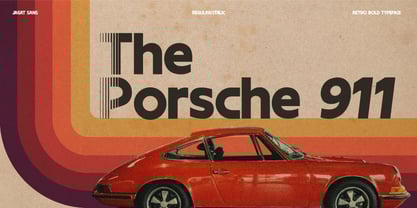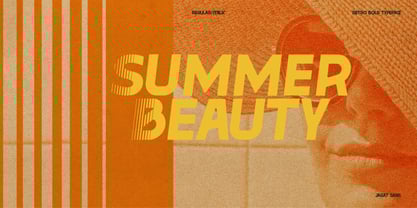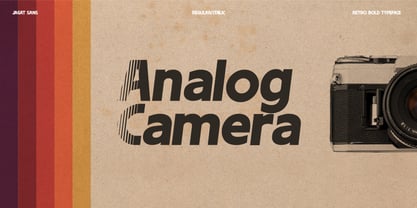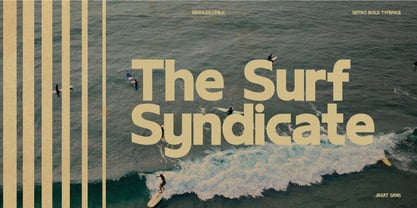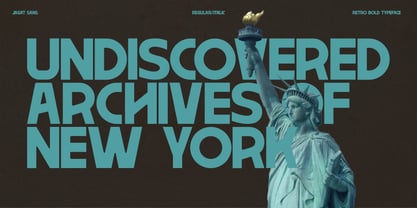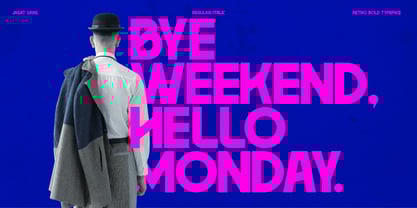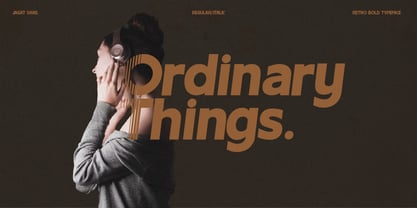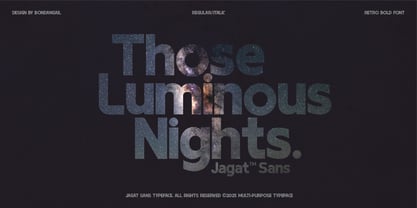
Jagat
The Jagat Font Family was designed by Bondan Gail Saputro and published by BondanGail. Jagat contains 2 styles and family package options.
Description Immerse yourself in nostalgia with Jagat Sans, a striking and bold retro-inspired typeface that commands attention. Featuring an array of uppercase and lowercase alternates, it enhances its vintage vibe with a modern edge. Designed to revive the vibrant essence of the 70s and 80s, Jagat Sans injects energy and character into contemporary design. For impactful large headings, tighten the letter spacing to amplify the groove, while maintaining a comfortable, natural spacing for smaller body text.
Jagat Sans includes :
2 style Typefaces Regular and Italic
Uppercase, Lowercase, Numeral, Symbol and Punctuation
Uppercase and Lowecase Alternates
Multilingual